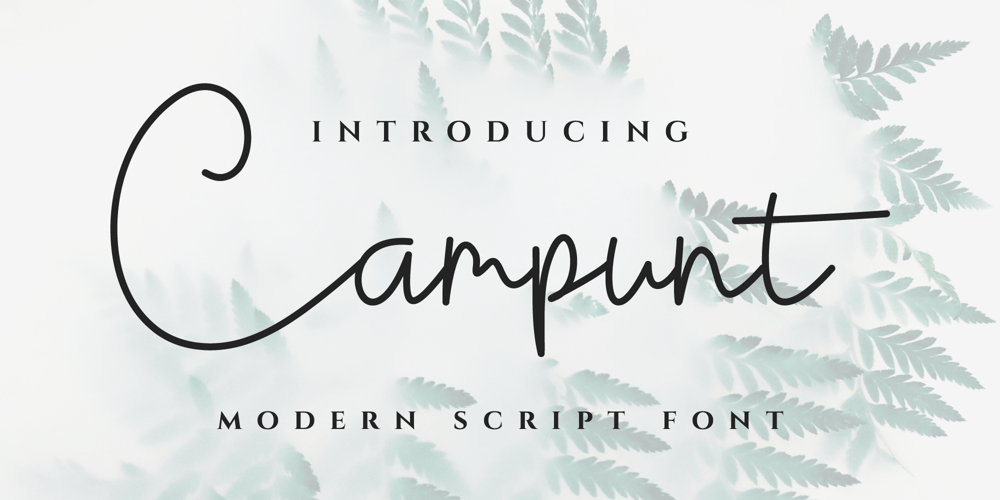
Campunt Font Family was designed by Iwan Alwan and published by Artiveko. Campunt contains 2 styles and family package options. Campunt, a breathtaking script handwritten font designed by the talented Iwan Alwan.Infused with elegance and charm, Campunt embodies a seamless blend of minimalism and femininity, making it perfect for various occasions. Whether it’s for weddings, decorations, or crafting personalized signatures, this font effortlessly captures the essence of sophistication and grace.With its graceful strokes and fluid lines, Campunt adds a touch of refinement to any project, elevating it to a realm of timeless beauty. Let Campunt adorn your creations and infuse them with an aura of delicate allure.